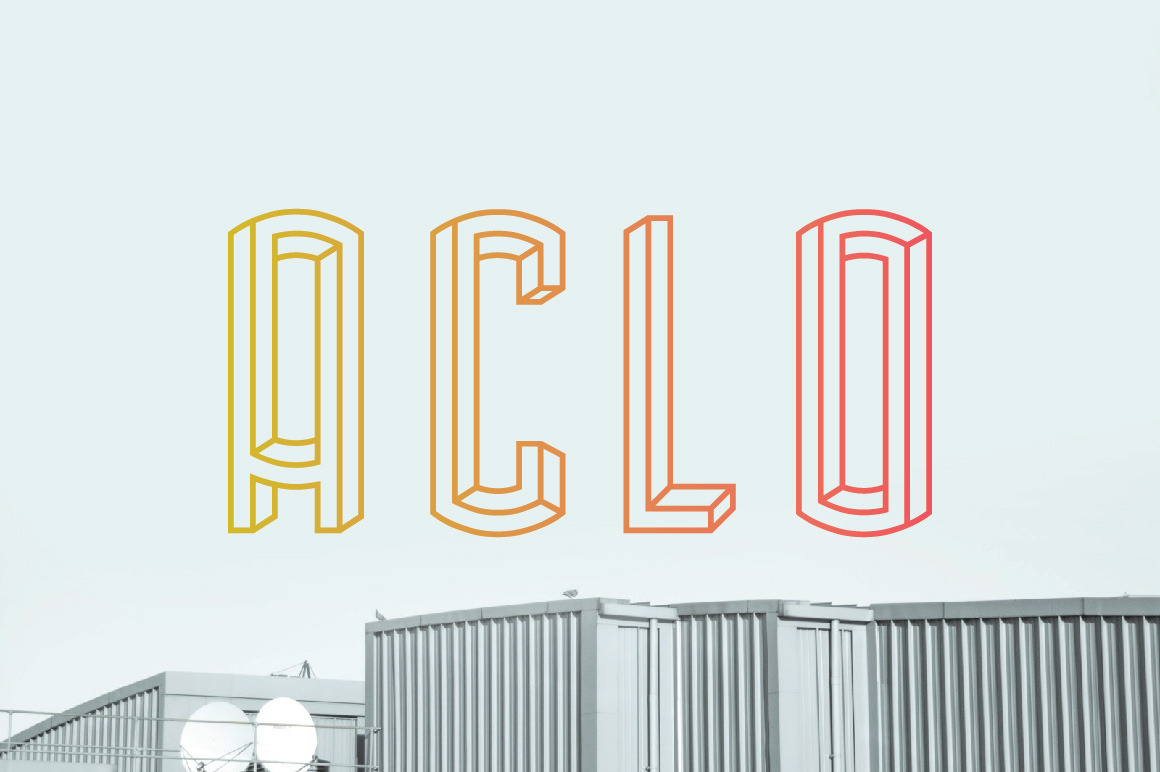
Aclo font
This font is ideal for posters and logos. Inspired by Escher work.
Very unique even among Escher-like fonts, as most of those lean into the angular look and overlook the more rotund elements of his work (as seen in, say, "Relativity" - that's literally the most famous one!) I've spent an eternity looking for a typeface that isn't just all-caps and (!) actually (!!) includes diacritics (!!!) and the fact that there are no other reviews is criminal, especially for the price. I would love to see more styles for this font - filled in black with white outlines, one of the sides shaded in black to convey volume, and so forth.